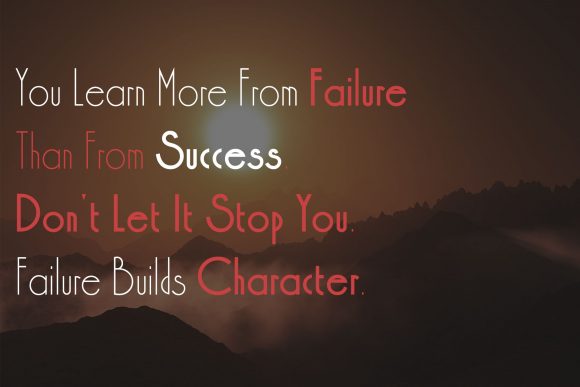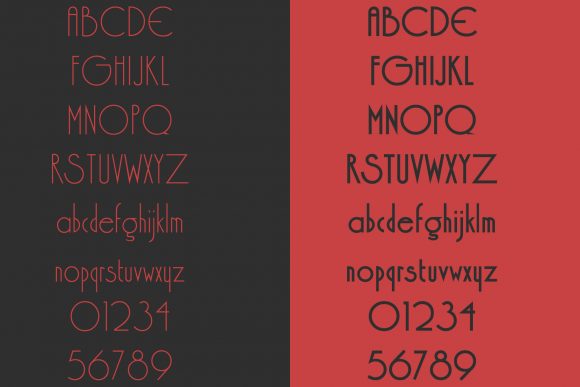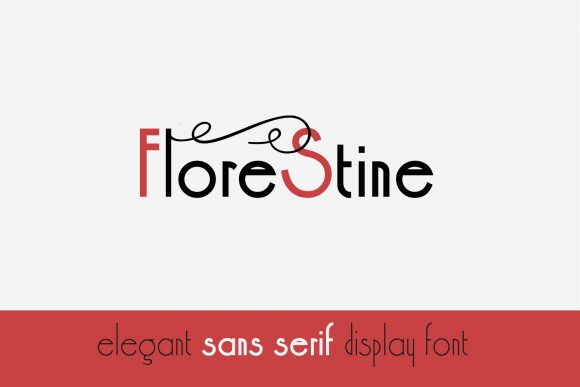
Discover the Elegance of Florestine Font: A Minimalist’s Dream
Are you a designer, crafty enthusiast, or simply someone who appreciates the beauty of typography? Look no further! In this article, we’ll introduce you to the stunning Florestine Font, a minimal yet elegant sans serif font that’s about to become your new favorite go-to typeface.
The Beauty of Simplicity
Florestine Font boasts a neat and simple style that makes it incredibly versatile. Its minimalist design allows it to seamlessly integrate into a wide variety of designs, from modern digital projects to traditional print materials. The clean lines, subtle curves, and balanced proportions of Florestine create a visually appealing aesthetic that’s both sophisticated and approachable.
What Makes Florestine So Special?
So, what sets Florestine apart from other fonts? Here are just a few reasons why this font is sure to capture your heart:
• Universal Appeal: Florestine’s simplicity and elegance make it suitable for a broad range of designs, from elegant wedding invitations to modern business branding.
• Readability: The font’s clear and concise structure ensures excellent readability, even at smaller font sizes.
• Flexibility: Florestine works beautifully in both digital and print formats, making it perfect for various applications, such as signage, packaging, and more.
Use Cases for Florestine Font
With its adaptability and aesthetic appeal, Florestine Font can be used in a multitude of design projects. Here are some inspiring ideas to get you started:
• Branding and Logos: Create a lasting impression with Florestine, perfect for crafting professional logos, business cards, and letterheads.
• Wedding and Event Design: Add a touch of sophistication to your wedding invitations, programs, and other event materials with Florestine’s elegant style.
• Digital and Print Media: Use Florestine in your blog, social media graphics, or print publications, such as brochures, flyers, and posters.
• Crafting and DIY Projects: Incorporate Florestine into your handmade crafts, like papercrafting, journaling, or sewing projects, for a personalized and stylish touch.
Tips for Working with Florestine Font
To get the most out of Florestine Font, keep the following tips in mind:
• Experiment with Font Sizes: Florestine looks great in various font sizes, so don’t be afraid to try different sizes to achieve the desired effect.
• Pair it with Other Fonts: Combine Florestine with complementary fonts to add visual interest and create a unique typographic style.
• Play with Colors and Textures: Add an extra layer of depth to your design by incorporating different colors, textures, and backgrounds with Florestine.
In conclusion, Florestine Font is a beautiful, minimalist sans serif font that’s perfect for designers, crafters, and anyone looking to elevate their typography. Its simplicity, elegance, and versatility make it an excellent addition to any design project. With Florestine, you’ll be able to create stunning visuals that are sure to leave a lasting impression.